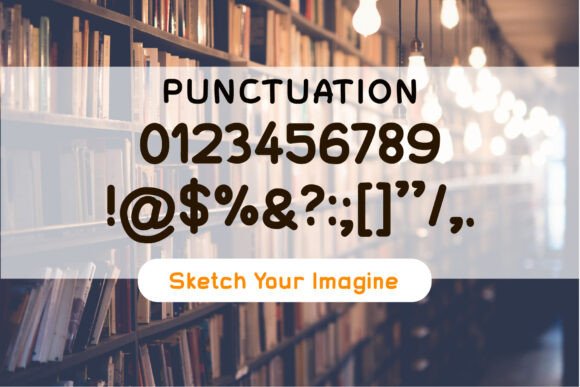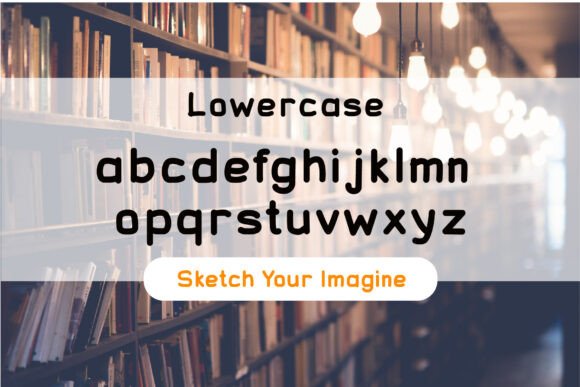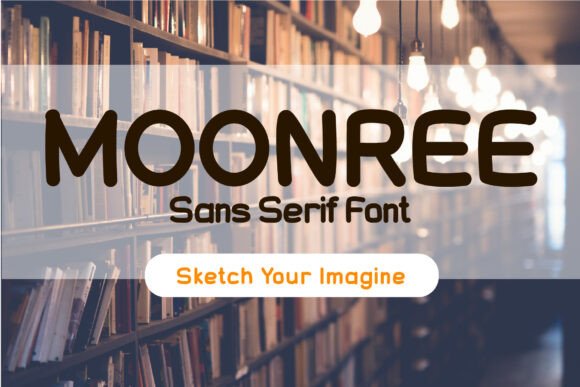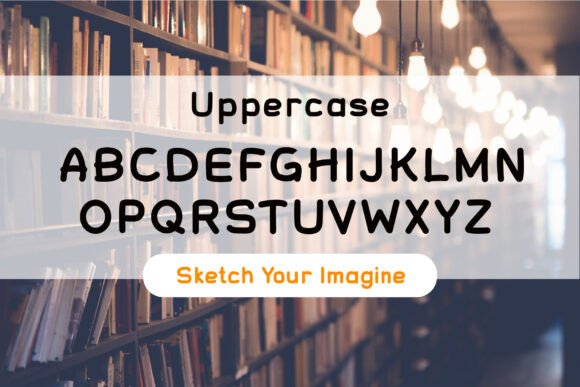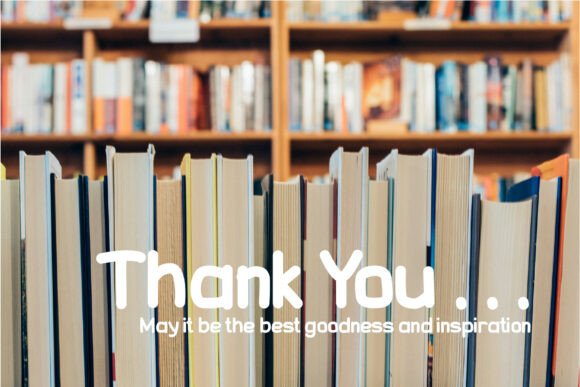
Introduction to Moonree Font
As a designer, you know the thrill of starting a new creative project. The blank canvas, the endless possibilities, and the chance to bring your vision to life. But what happens when you’re stuck for inspiration? When you need a design resource that’s both elegant and playful? That’s where Moonree Font comes in – a delightful handwritten sans serif font that’s perfect for adding a personal touch to your projects.
With Moonree Font, you’ll be able to create high-quality designs that stand out from the crowd. Whether you’re working on presentations, party decorations, or social media posts, this versatile font is sure to bring your DIY projects to life. And the best part? It’s available for free download, so you can add it to your library and start creating without breaking the bank.
- High-quality design resource for creative projects, offering a unique and elegant aesthetic.
- Unique characteristics include a modern, minimalist design and a wide range of language support, making it a versatile choice for global design projects.
Honest Review: Moonree Font
I recently had the chance to work with the Moonree Font for a creative project and I must say, I was quite impressed. The font is a fantastic addition to any design resource, offering a unique and elegant aesthetic that can elevate even the most basic of designs.
One of the things that works well with the Moonree Font is its versatility. It’s perfect for creating eye-catching headings and titles, and the high quality of the font ensures that it looks great at any size. Additionally, the transparent background makes it easy to customize and integrate into any design.
Here are some of the key features that make the Moonree Font stand out:
- Works well for headings, titles, and body text
While the Moonree Font is a great resource, there are a few limitations to be aware of: ⚠️ the font may not be suitable for very small text sizes, and it’s not available in as many languages as some other fonts. However, for most design projects, the Moonree Font is a great choice.
Overall, I’m really impressed with the Moonree Font and would definitely recommend it to anyone looking for a high-quality, versatile font for their design projects. ✨
To get the most out of Moonree Font, use it in combination with other design elements to create a cohesive and visually appealing design. Experiment with different font sizes, colors, and styles to find the perfect balance for your creative project.
Moonree Font is ideal for use in a variety of creative projects, including social media graphics, posters, presentations, and reports. Its high quality and transparent background make it a popular choice among designers and creatives.